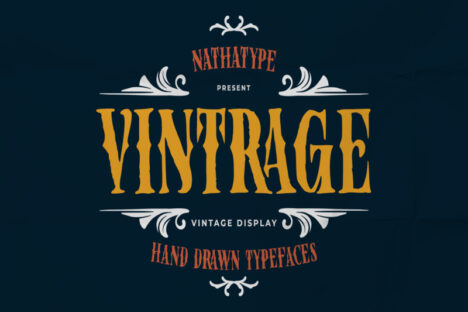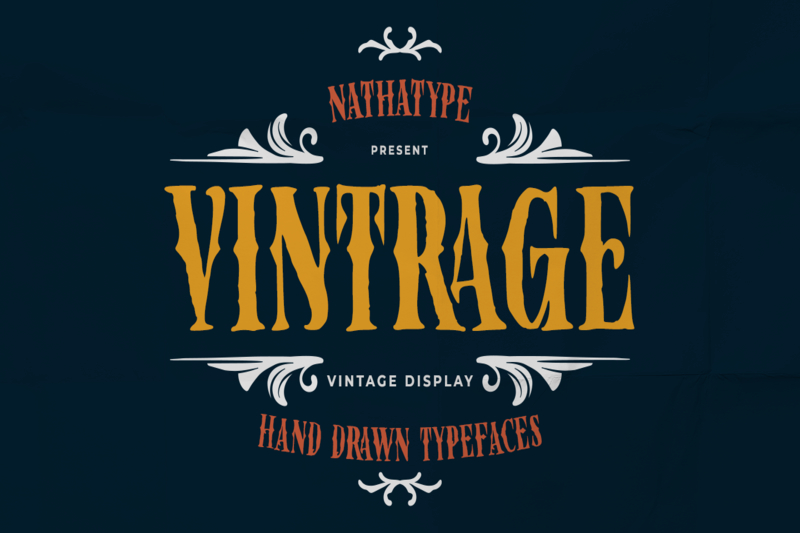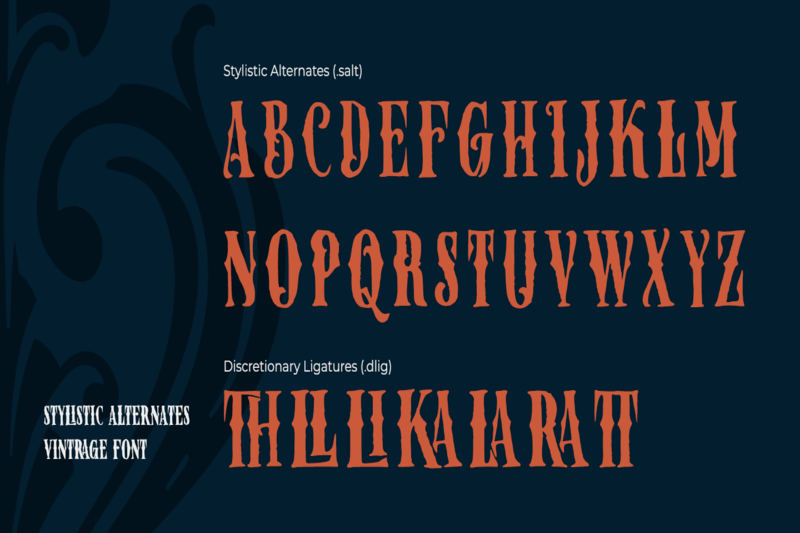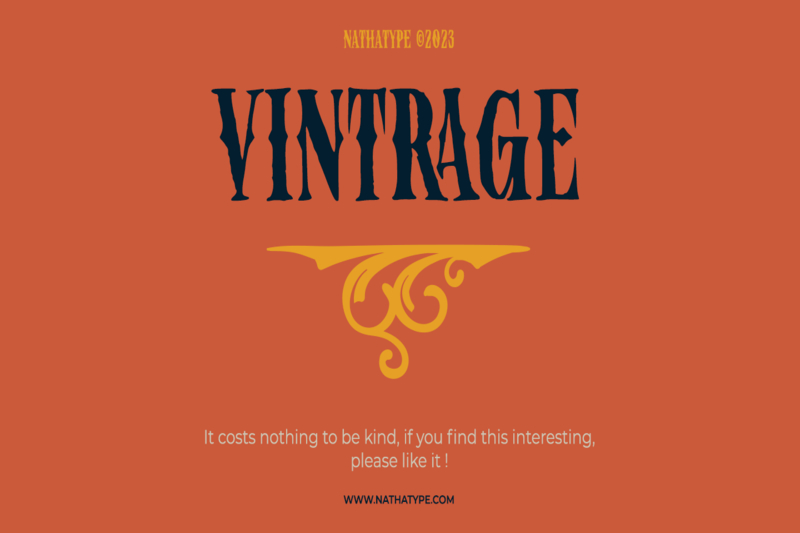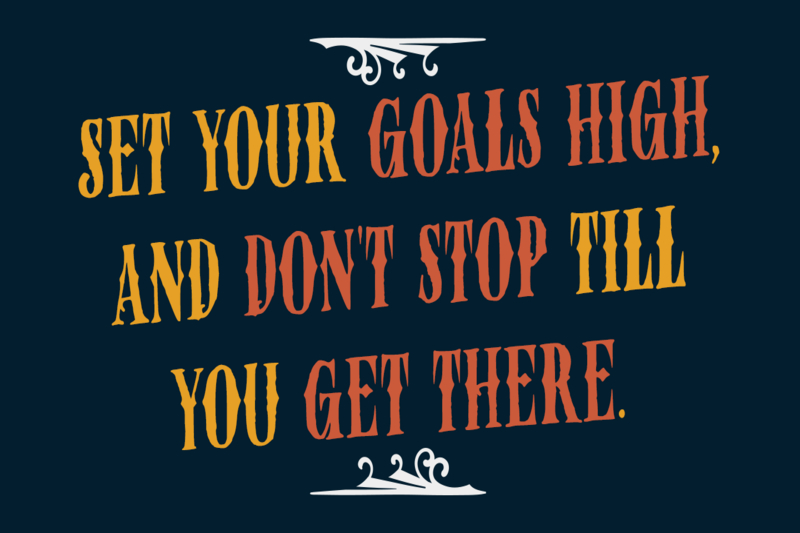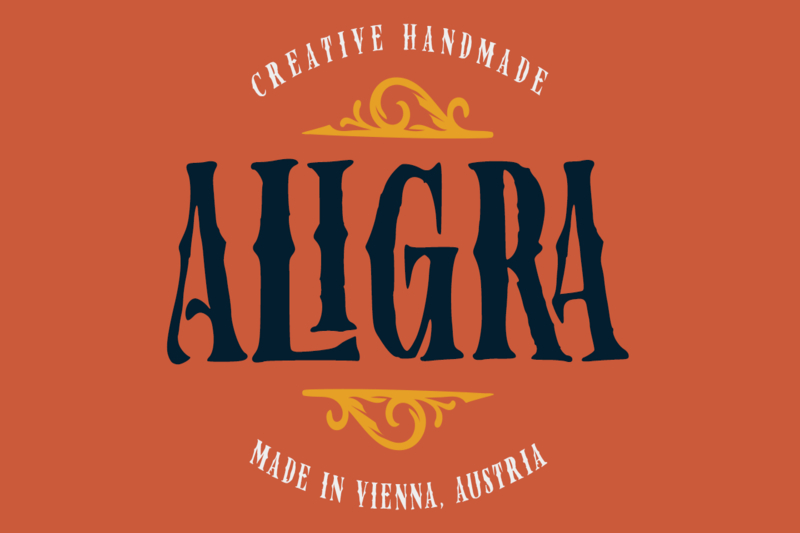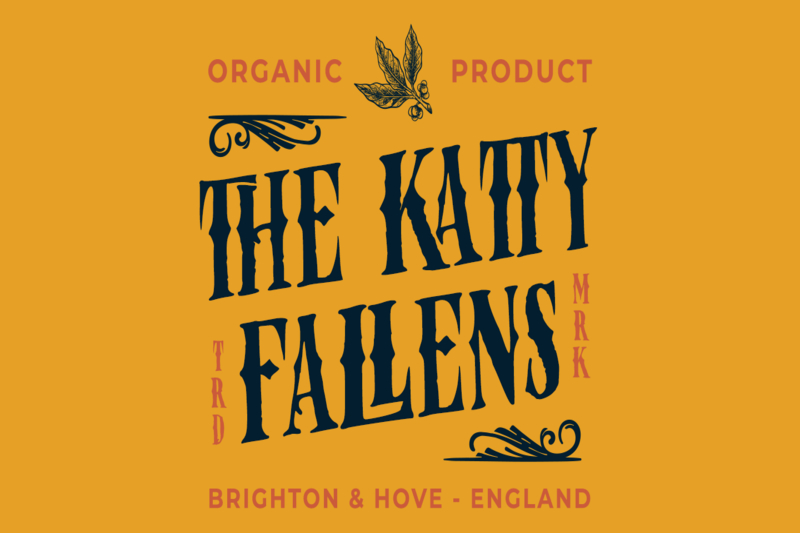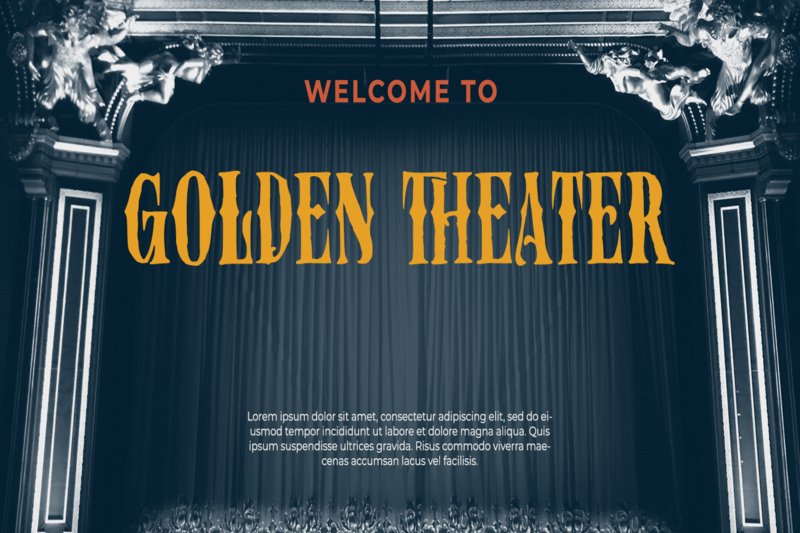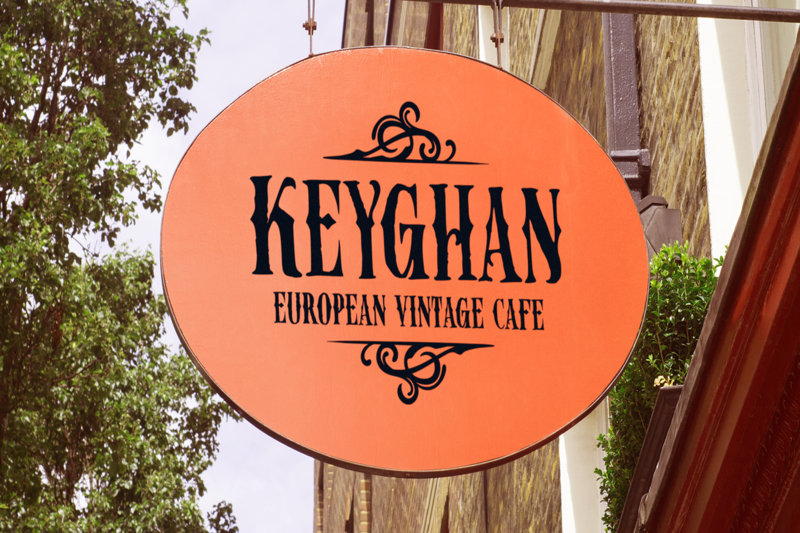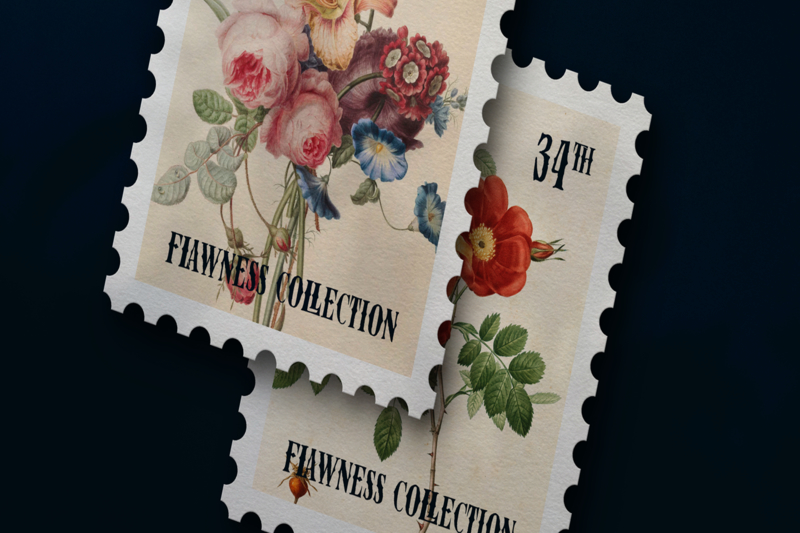
Vintrage
Vintrage is an uppercases display font with vintage design. The first thing you’ll notice about Vintrage is its presence. Each letter stands tall and proud, conveying a sense of strength and authority.
What sets this display apart is its high contrast. The contrast between thick and thin strokes is pronounced, giving the font a dynamic and eye-catching quality. Despite its boldness and contrast, the constant proportions across all its letters ensure readability and harmony in your designs.
One of Vintrage’s most distinctive characteristics is its textured outline. The edges of each letter have a slightly rough and imperfect quality, evoking the look of vintage letterpress printing or weathered signage. Beautiful ornaments are included as a bonus. In addition, the features here.
Vintrage fits in headlines, logos, posters, flyers, branding materials, print media, editorial layouts, and many more. Find out more ways to use this font by taking a look at the font preview.